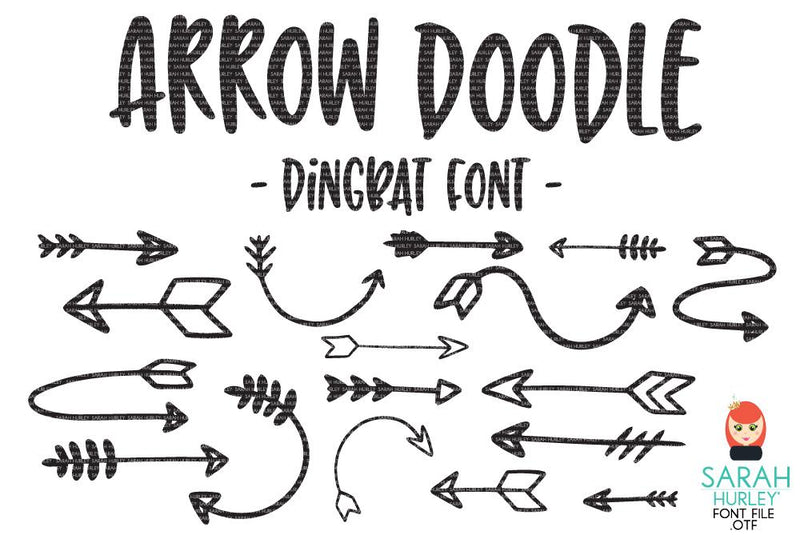
Doodle Arrow Dingbat Font
Doodle Arrow Dingbat Font by Sarah Hurley
Contains 26 hand drawn arrows, perfect for planners, Papercraft projects and more!